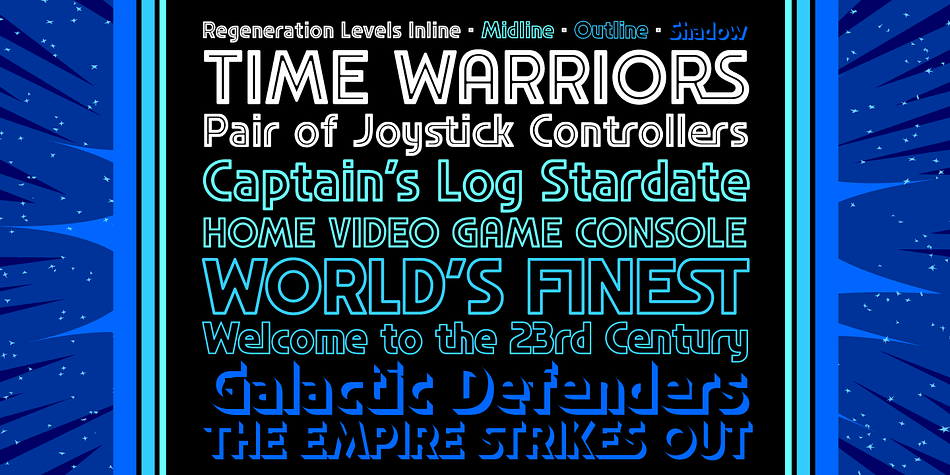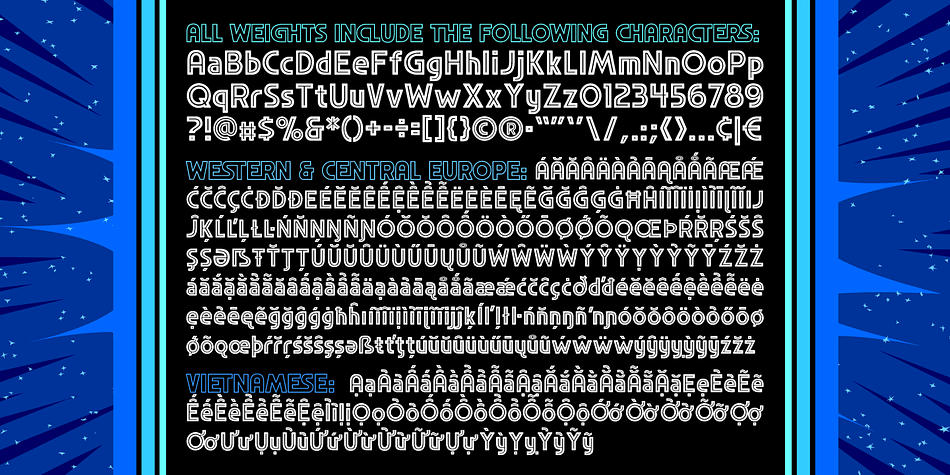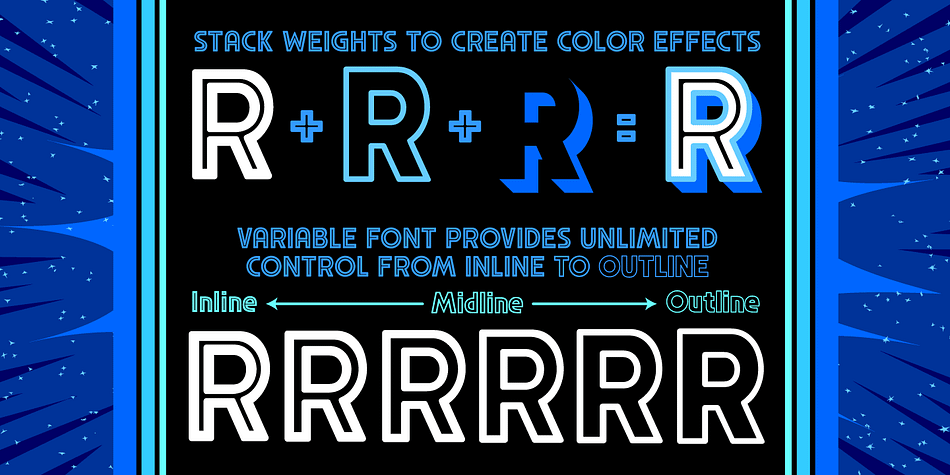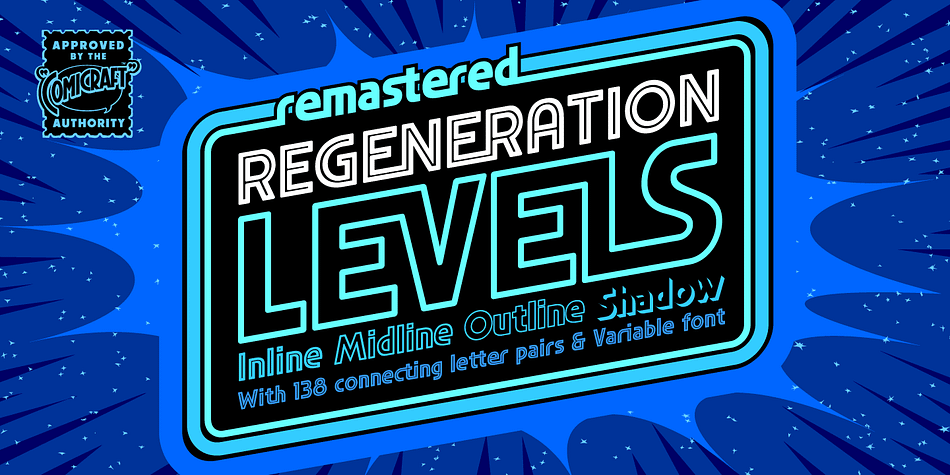
Designed by John Roshell, Regeneration Levels is a display sans font family. This typeface has three styles and was published by Comicraft.
It’s the end, but the moment has been prepared for… the Time War is over and things are wearing a bit thin, time for a new face, a new body, a new companion for our Timelord font… a REGENERATION!